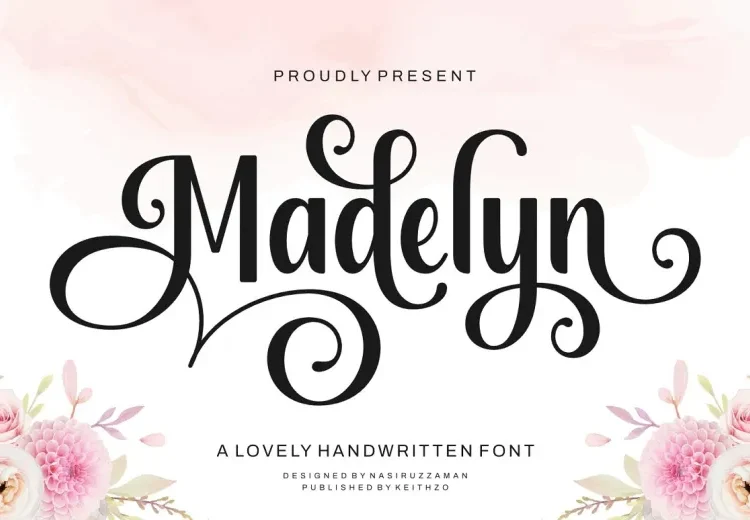
Madelyn Script Font
Madelyn is an elegant calligraphy font characterized by its smooth curves and graceful strokes, perfect for adding a touch of warmth and sophistication to your designs. Its refined, handwritten charm makes it an excellent choice for invitations, greeting cards, and any project where a personal, artistic flair is desired.
Experience the beauty of simplicity with Madelyn, which effortlessly enhances your work with its flowing script and artistic detail. The font is PUA encoded, giving you immediate access to a wealth of beautiful symbols and ligatures, allowing for versatile and expressive typography.